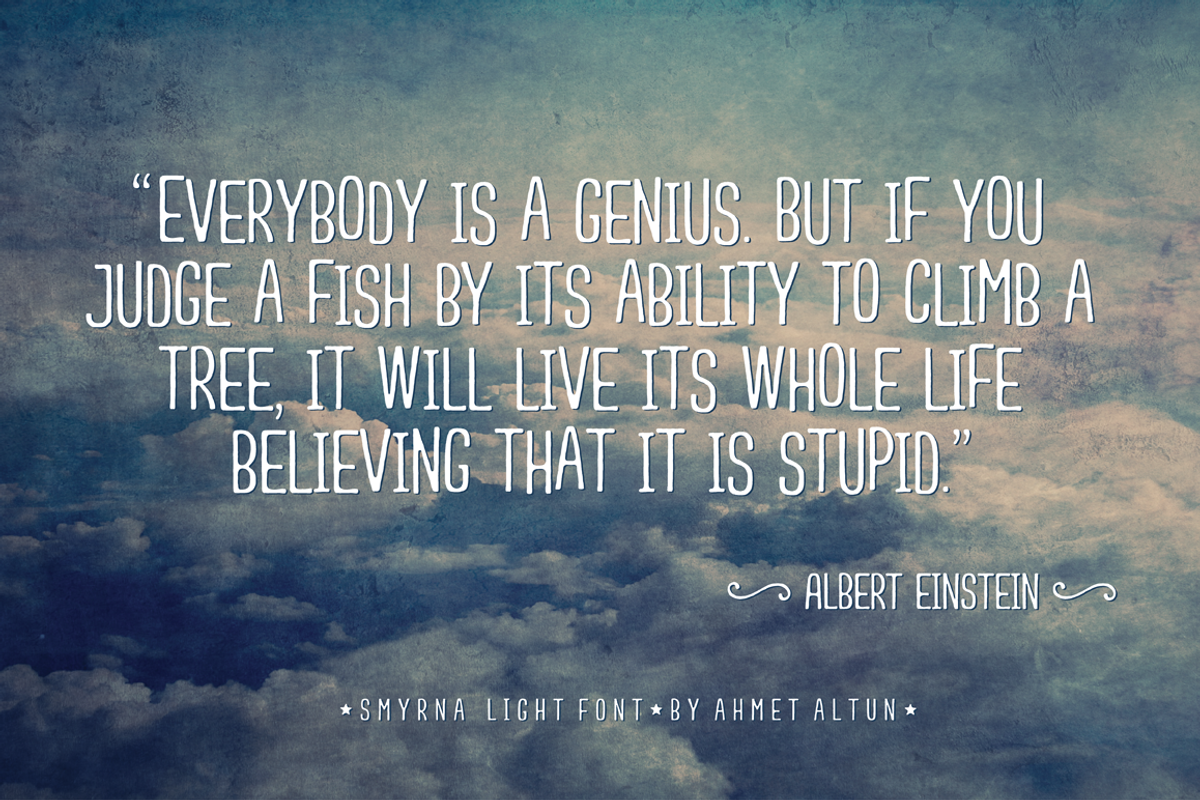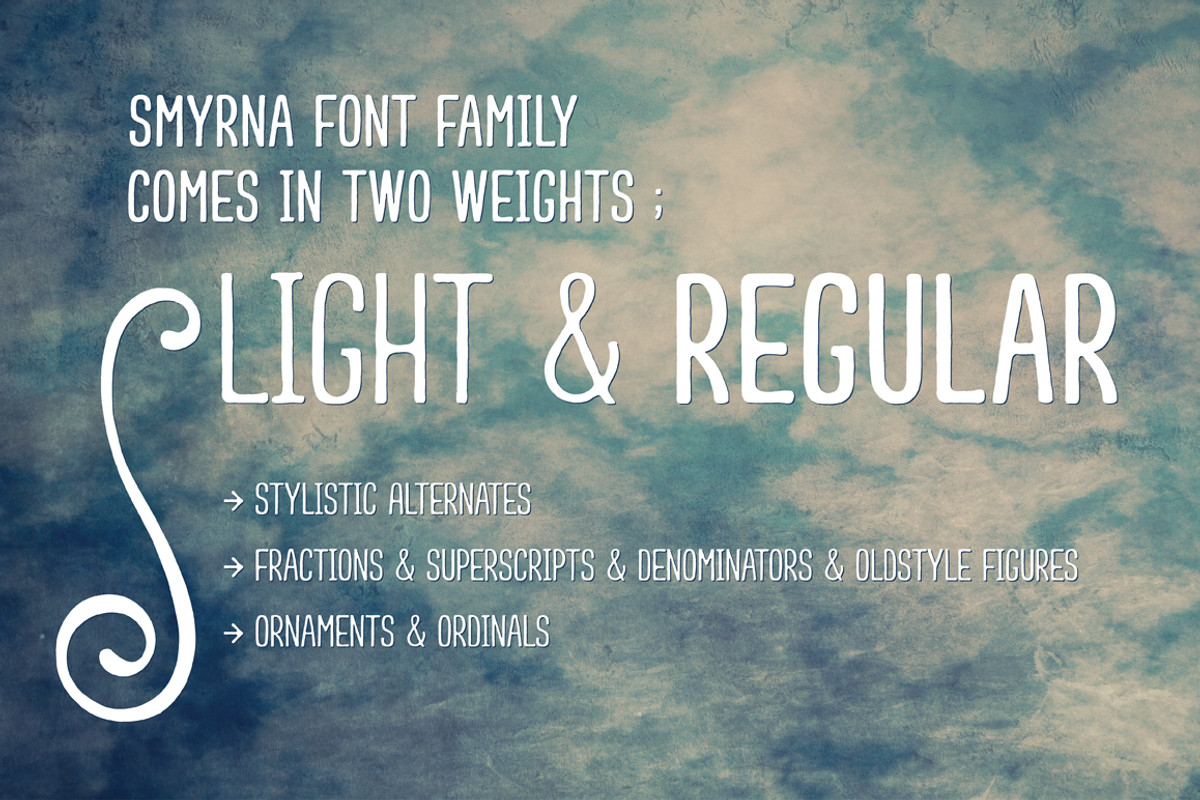
Smyrna Font Family
Smyrna Font Family by Ahmet Altun is a font selected for branding, posters, packaging, typography.
- When the Smyrna Font used in OpenType-savvy applications, its Stylistic Alternates feature produce a random-like effect on the terminal poin
- Smyrna Light
- Smyrna Regular
Why Smyrna Font Family is worth a look
Smyrna Font Family by Ahmet Altun fits naturally into Branding, posters, packaging, typography.